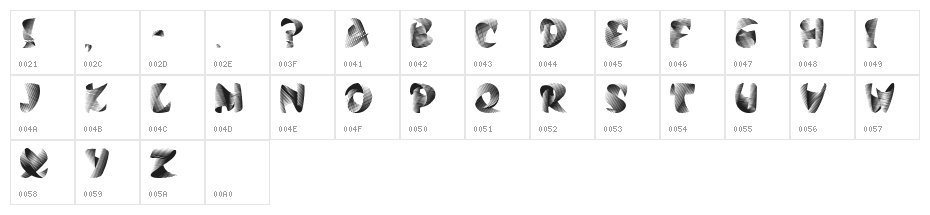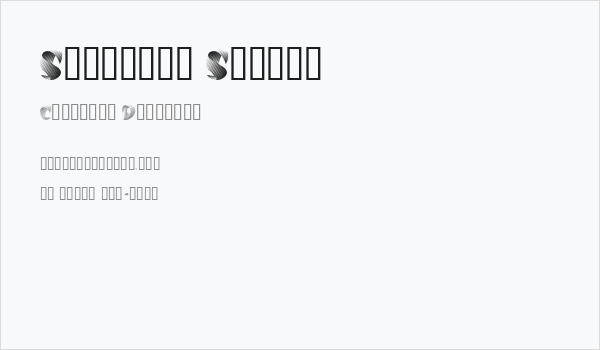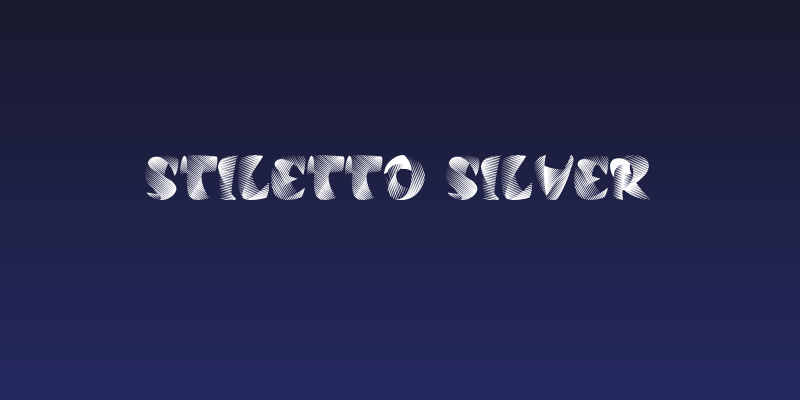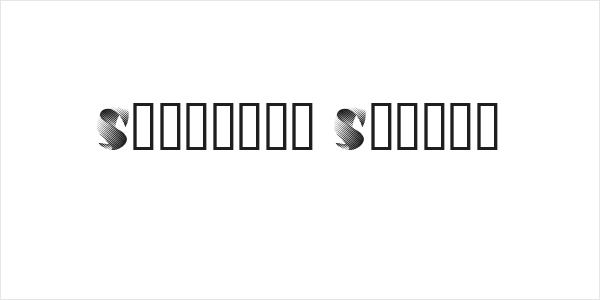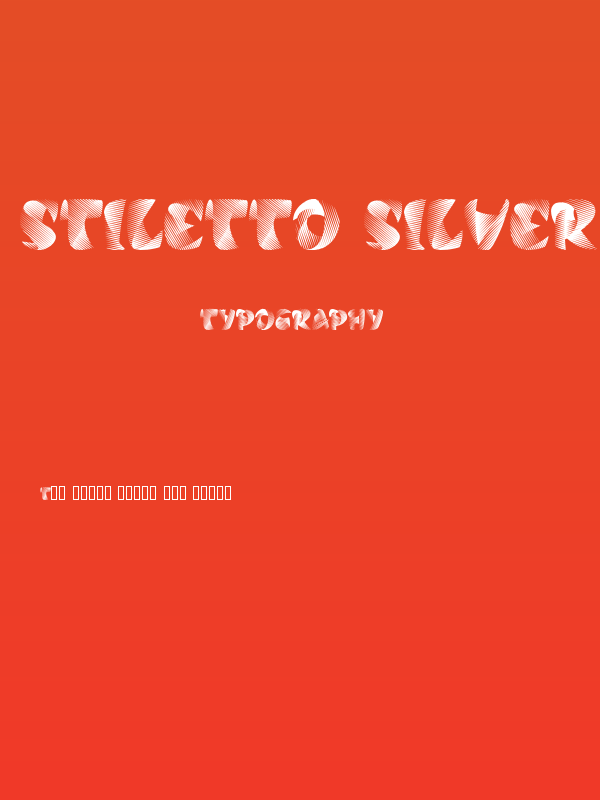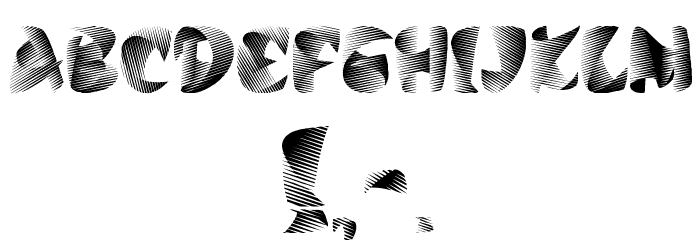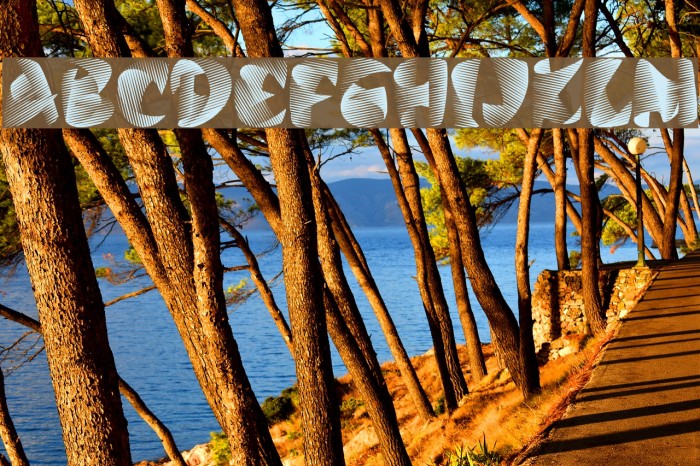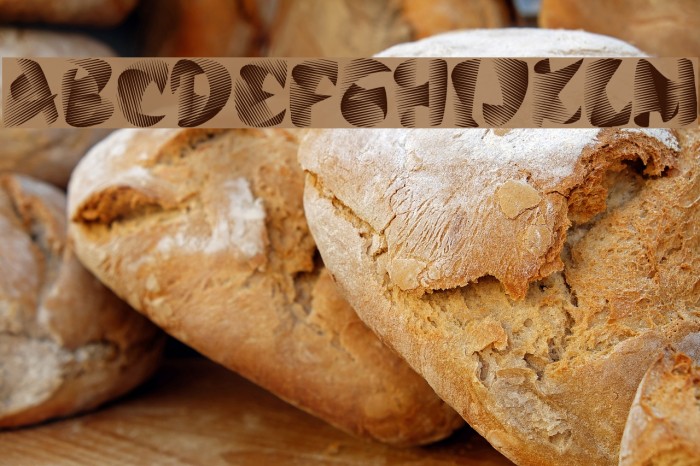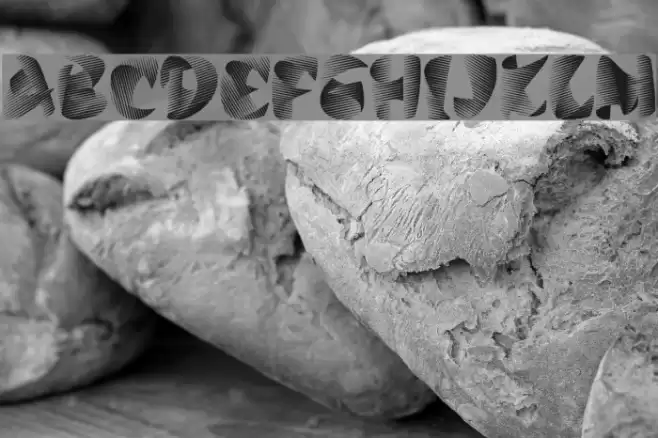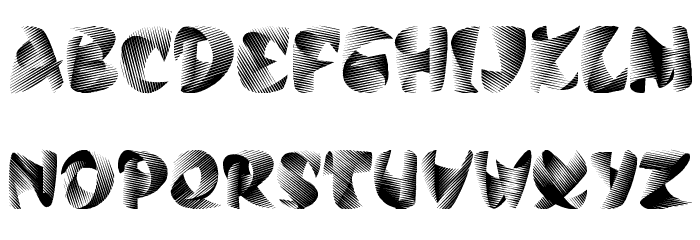
Stiletto Silver Font
Stiletto Silver Description
This font features a unique and striking design characterized by a series of parallel lines that create a dynamic, textured appearance. The letters are bold and have a sense of movement, as if they are vibrating or shimmering. The style is highly decorative, making it stand out in any design. The uppercase and lowercase letters maintain a consistent pattern, while the numbers and special characters follow the same aesthetic, ensuring uniformity across all text elements. This font is ideal for projects that require a bold statement and a modern, artistic flair.
| Overall Style | Modern, Decorative |
| Proposed Projects | Ideal for posters, album covers, branding, and any project needing a bold, artistic touch. |